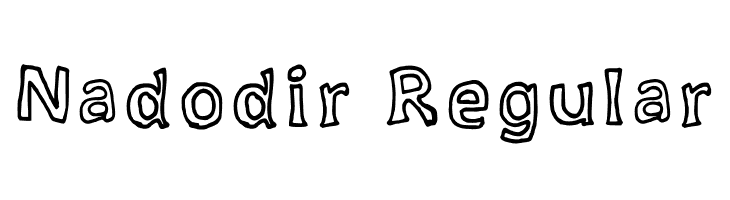
( Fonts by Andrew Happy )
A playful, hand-drawn font with bold, irregular outlines.
( Fonts by PressGang Studios )
A bold and italic playful font with rounded, dynamic characters.
A bold, expanded, and italicized futuristic font with angular, dynamic characters.
( Fonts by Sign Studio )
A bold, playful font with rounded, bubbly characters perfect for retro designs.
A bold, futuristic font with a three-dimensional shadow effect.
A modern, geometric font with thin, uniform lines and rounded edges.
A bold, angular, and futuristic font with a dynamic slant.
( Fonts by Rockave St )
A textured, hand-drawn style font with a dynamic and playful appearance.